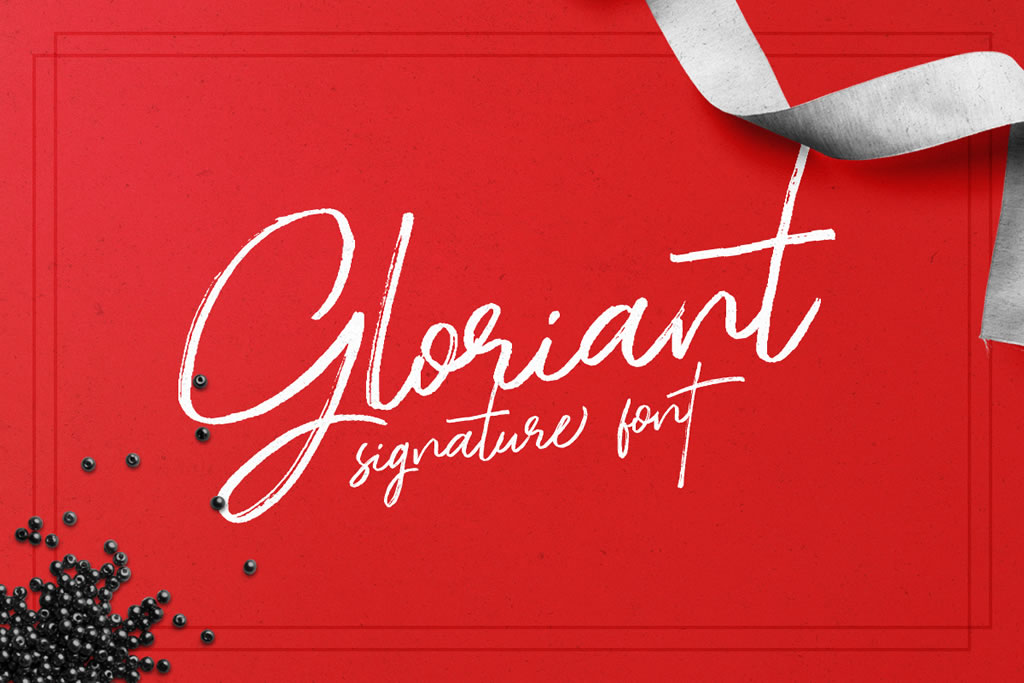
Step into the realm of elegance and grace with the Gloriant Signature Script font, a captivating creation by letterhend, designed to transform your digital designs into masterpieces. This exquisite font family, adorned with a script style, invites you to explore the world of handwritten beauty, where every letter dances upon the page with an unmatched charm.
Gloriant's Clean variation exudes a pristine and polished aura, its lines flowing effortlessly like a gentle stream, while its Brush counterpart embraces a touch of artistic flair, reminiscent of masterful strokes painted with a delicate brush. Both variations possess a natural look, mirroring the organic essence of handwritten artistry, evoking a sense of authenticity and warmth.
With Gloriant, you unlock a world of creative possibilities. Its enchanting style lends itself seamlessly to a myriad of design projects, from wedding invitations that whisper elegance to branding materials that exude sophistication. Craft logos that speak volumes about your brand's personality, or compose social media posts that captivate your audience with their visual allure.
Whether you're a seasoned designer or just starting your creative journey, Gloriant's intuitive nature makes it a joy to use. Its smooth curves and graceful strokes blend harmoniously with any design aesthetic, elevating your projects to new heights of sophistication.
So, why settle for ordinary when you can embrace the extraordinary? Dive into the world of Gloriant Signature Script today and discover the transformative power of elegant typography. Let your designs blossom with an aura of timeless beauty, leaving a lasting impression that resonates with your audience.